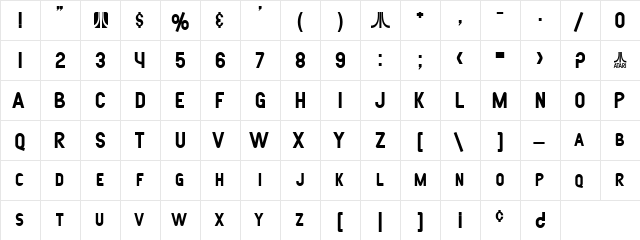
SF Atarian System Bold
SF Atarian System takes a measured approach to typography — its balanced proportions and neutral character make it a reliable workhorse for both digital and print work. Its bold stroke weight gives it real presence on the page.